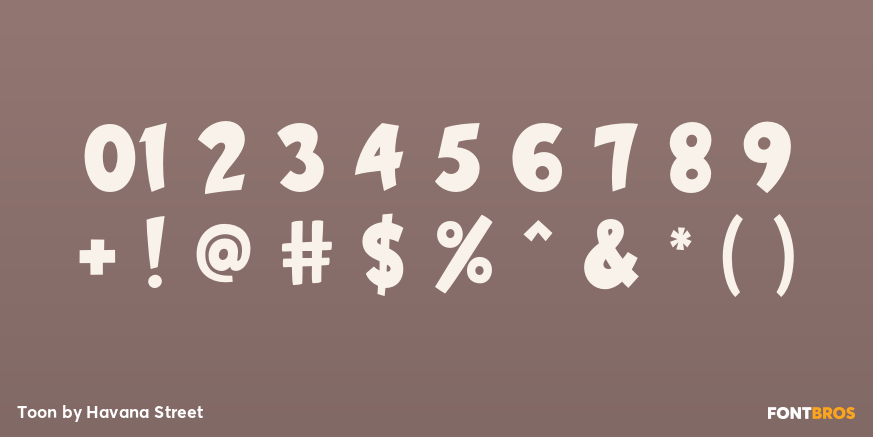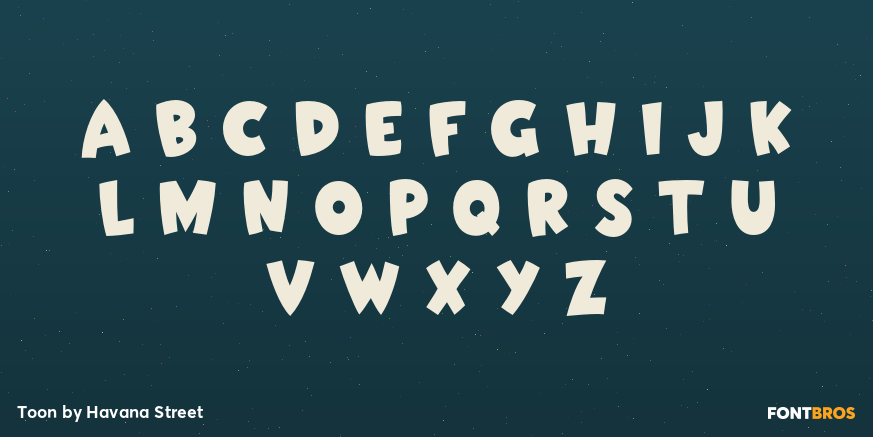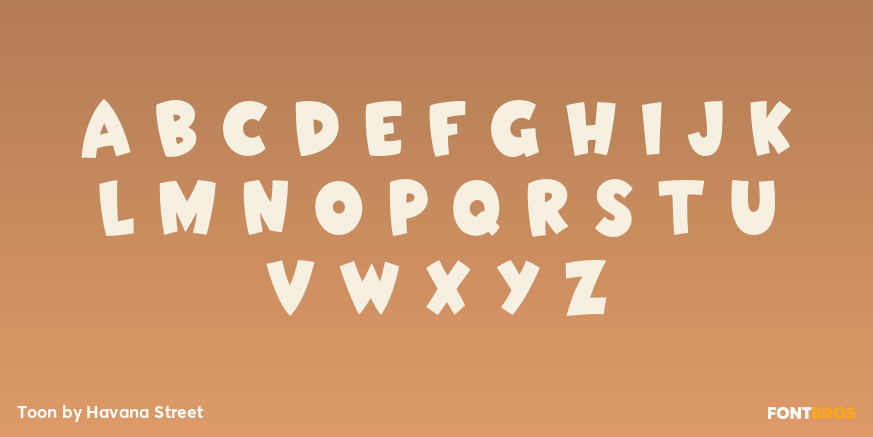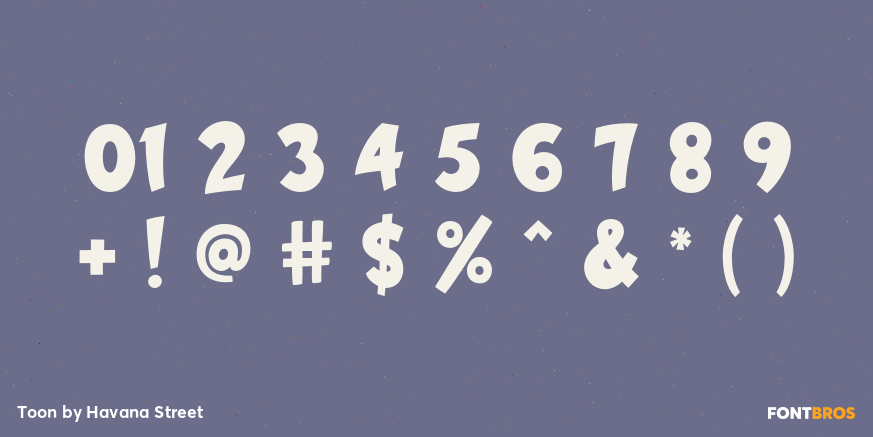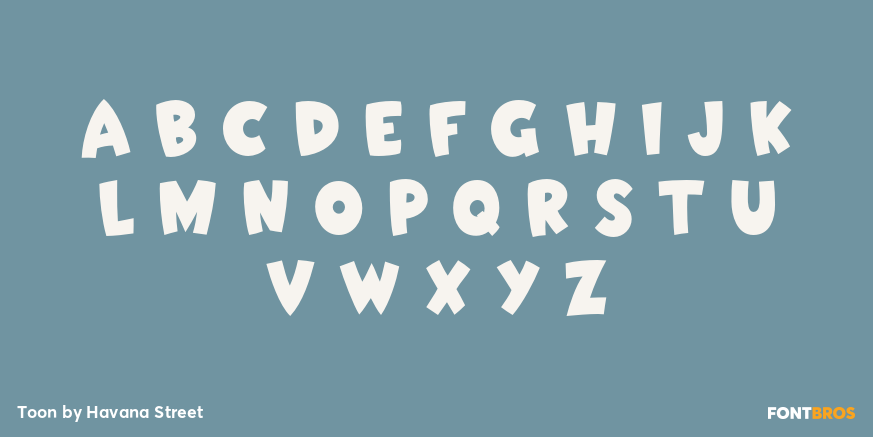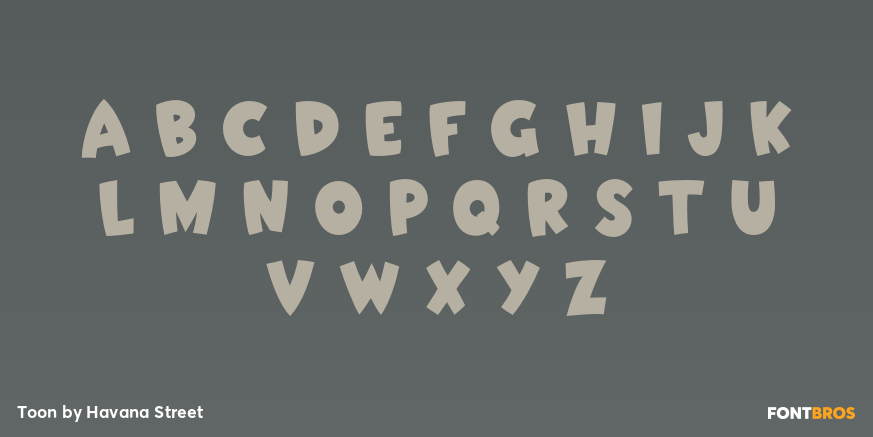
Toon
Font Family by Havana Street
Toon is the essential 1940s style cartoon font! This classic face pairs perfectly with any playful art deco design you may create.
Previously available only from the hand of the artist, Havana Street has brought original 1940s style Hollywood hand-lettered, movie poster-type to your keyboard. Now you too can adorn your creations with these wonderfully gaudy fonts.